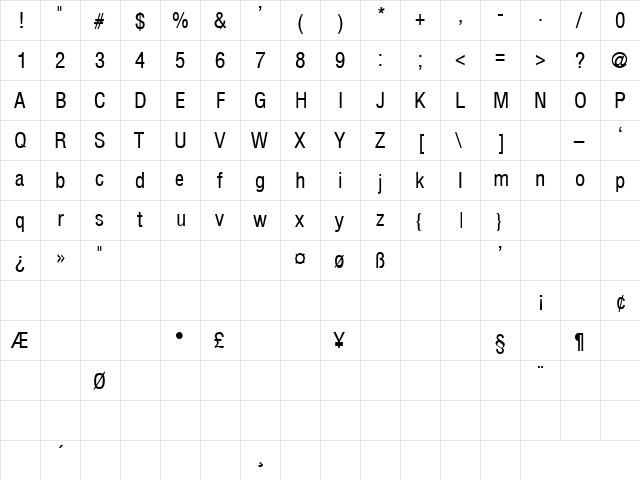
Communication26 Regular Font Preview
Communication26 Regular
Communication26 Regular Font Details
Design Context for Communication26 Typeface
Communication26 takes a measured approach to typography — its balanced proportions and neutral character make it a reliable workhorse for both digital and print work.